2 Google Fonts Similar to Minion Pro
Minion Pro is a serif typeface created in 1990 by Adobe. It was designed for elegant body text and was inspired by late 16th century design.
Serif fonts are always hard to find exact matches for. However, I believe that I have two pretty solid alternatives from the Google Font library.
What Google Fonts are Similar to Minion Pro?
The best Google Fonts that are similar to Minion Pro are:
- Crimson Text
- Alegreya
Both of these fonts would make for a decent alternative. So let's cover what they have in common and their differences.
Crimson Text
Crimson Text would make for an excellent alternative to Minion Pro. The lowercase letters are very identical with very minor differences.
The uppercase is also identical, but there is some minor differences with the "J". Overall, it is rare to see two fonts so similar to each other.
The other difference you will see is the kerning between some letters. For example, in Minion Pro the "T" and "h" touch each other.
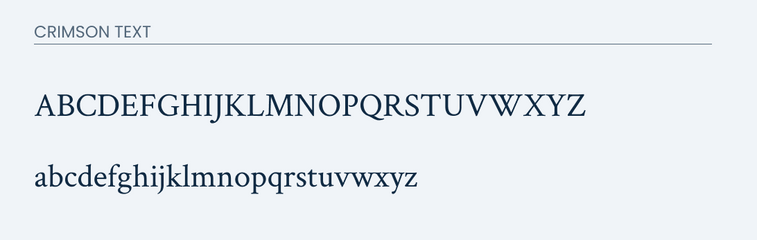
Alegreya
Alegreya is another good font that is similar to Minion Pro. It does a great job in matching some of the kerning that Minion Pro is known for.
The matches much of the letters in both upper and lowercase.
The differences you will see are in the lowercase "g" and the uppercase "J" and "Q". Otherwise they are very similar.
Conclusion
Crimson Texta and Algreya would make good alternatives to Minion Pro. They are able to closely match it's unique style. Each one of these is available in the Google Font library.